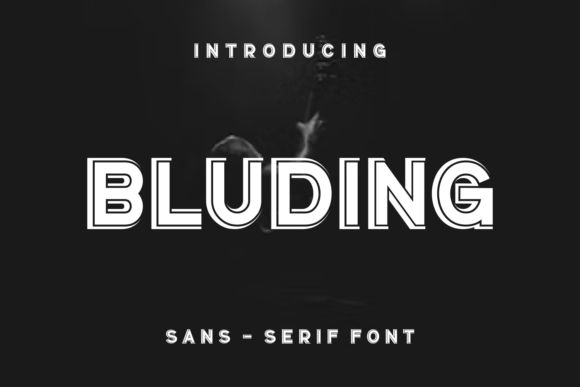
Embrace the Future of Typography with Bluding: The Font That Propels Your Ideas into the Digital Galaxy!
In a world saturated with monotonous fonts, Bluding emerges as a beacon of innovation, a font that shatters the boundaries of creativity and propels your designs into the digital stratosphere. This meticulously crafted display font is a testament to the power of technology, seamlessly blending futuristic aesthetics with the timeless elegance of hand-crafted artistry. It's a font that speaks to the modern visionary, the creative pioneer who yearns to leave an indelible mark on the digital landscape.
Bluding's meticulously crafted glyphs exude a captivating aura of sophistication, with sharp angles and dynamic curves that dance across the screen. Each letterform is a testament to precision, a visual masterpiece that captures the essence of cutting-edge design. This font is not merely a collection of characters; it's an orchestra of visual elements that harmonize together to create a symphony of innovation.
Unlock the Gateway to a Limitless Creative Universe:
With Bluding as your creative ally, you possess the power to transform ordinary designs into captivating works of art. Let your imagination soar as you explore the endless possibilities that this font presents. From sleek logos that command attention to eye-catching headlines that demand action, Bluding empowers you to craft a visual identity that resonates with your audience and leaves a lasting impression.
Harness the Power of Bluding for Your Technological Masterpieces:
In the realm of technology, Bluding emerges as the perfect font for logos, branding, and digital marketing materials. Its inherent futuristic charm complements the sleek aesthetics of modern technology, creating a seamless synergy between visual identity and technological prowess. With Bluding, you can forge an unforgettable brand presence that speaks directly to the tech-savvy generation.
Embark on a Journey of Creative Exploration:
Bluding is not just a font; it's a gateway to a world of creative possibilities. Whether you're a seasoned designer seeking to elevate your work or an aspiring entrepreneur looking to make a bold statement, this font is your ultimate companion. Let Bluding ignite your imagination and unleash a torrent of innovative ideas that will redefine your creative boundaries.